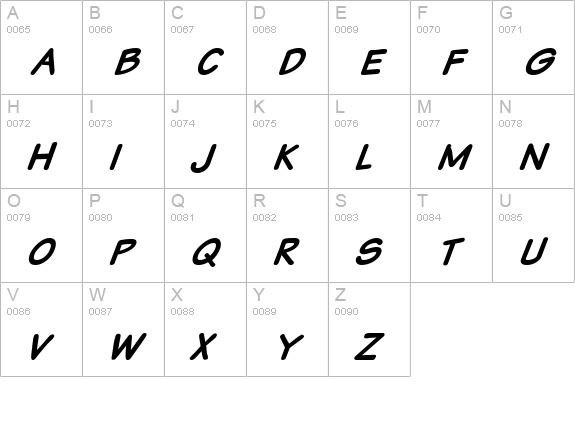
VTCSundaykomixBoldItalic is a visually captivating and dynamic font that effortlessly combines boldness and italics to create a striking visual impact. With its unique and expressive design, this font is perfect for adding a touch of creativity and excitement to any project. Featuring a bold and italicized style, VTCSundaykomixBoldItalic exudes a sense of energy and playfulness that is both eye-catching and attention-grabbing. Its bold strokes and slanted angles give it a distinct personality, making it an ideal choice for logo designs, headlines, posters, and more. What sets VTCSundaykomixBoldItalic apart is not just its impressive aesthetics, but also the fact that it is freely available to download at FontsMarket.com. Yes, you read that right – this remarkable font can be accessed at no cost, allowing you to unleash your creativity without any restrictions. Downloading this font is as easy as a few clicks, making it a valuable asset for designers, artists, and enthusiasts alike. Whether you're designing a website, creating a social media post, or crafting a captivating advertisement, VTCSundaykomixBoldItalic is here to elevate your project to new heights. Its bold and italicized nature adds a touch of drama and excitement, while the free accessibility ensures that anyone can bring their vision to life. So, go ahead and embrace the boldness and italics of VTCSundaykomixBoldItalic. Download this font for free at FontsMarket.com and let your imagination run wild. Unleash the power of this captivating font and make your designs truly stand out.